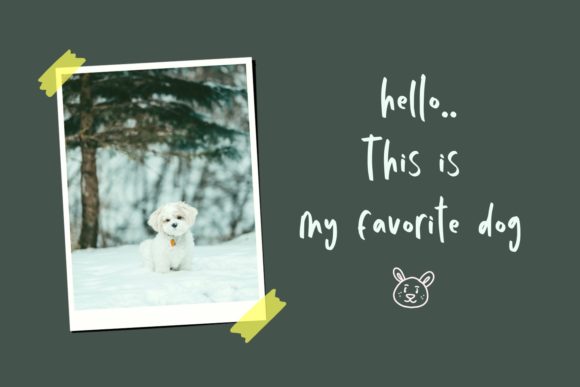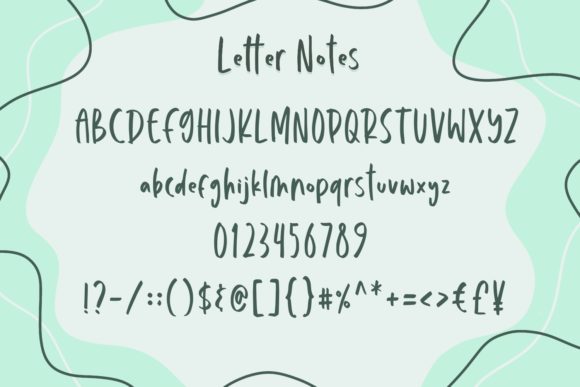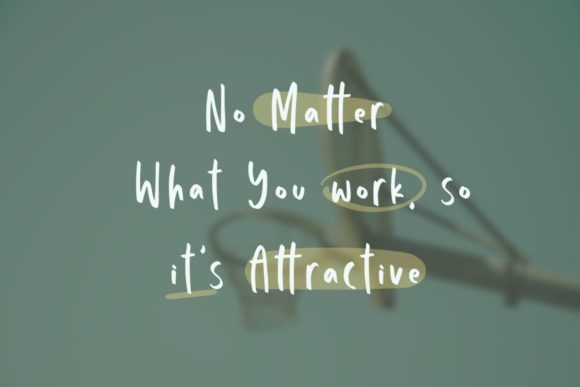
Introduction to Letter Notes Font
Letter Notes is a friendly and adaptable script font.
Relaxed and casual, this font will easily match a wide range of designs Have fun with this beautiful font and explore its endless variations.
Key Features of Letter Notes Font
Why Choose Letter Notes Font?